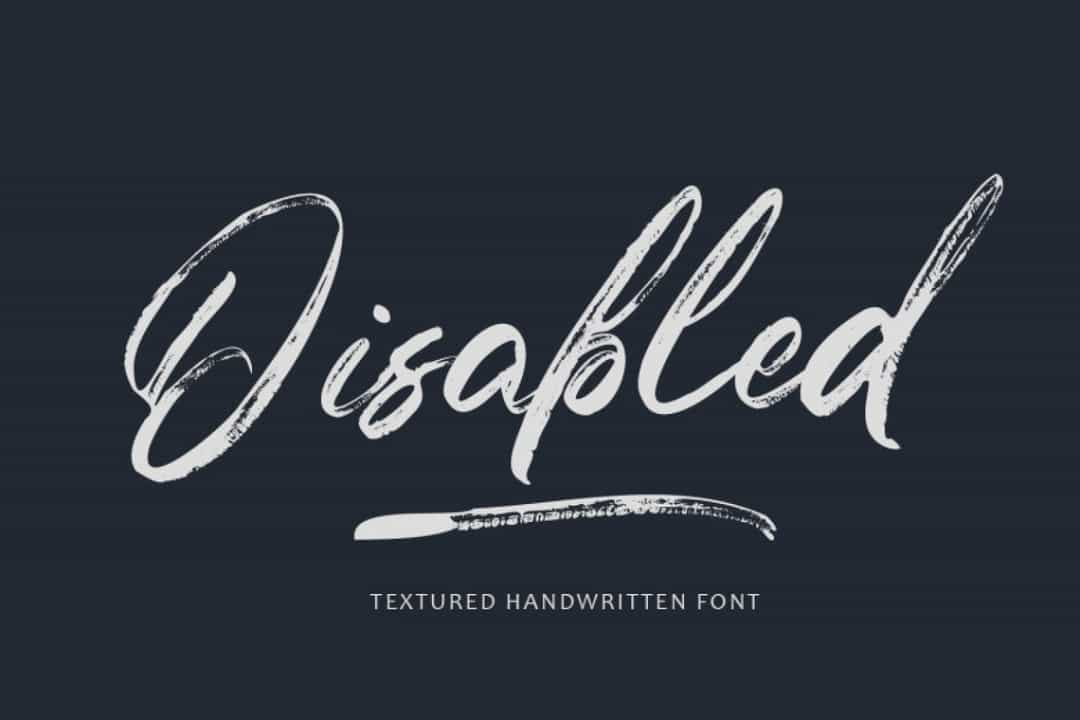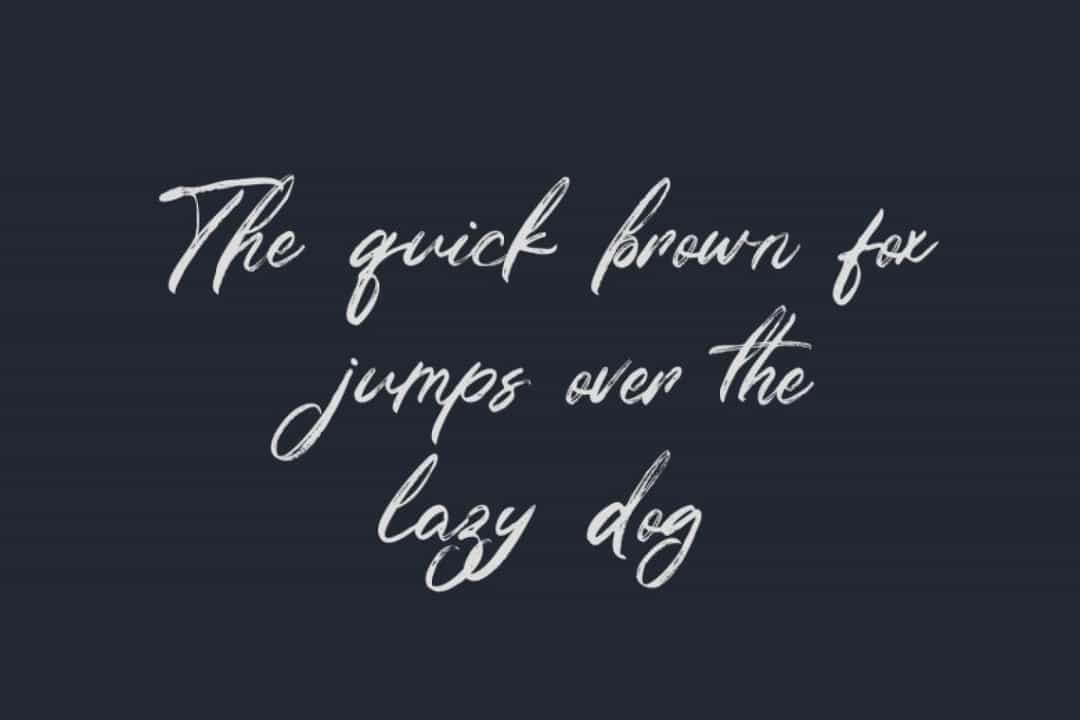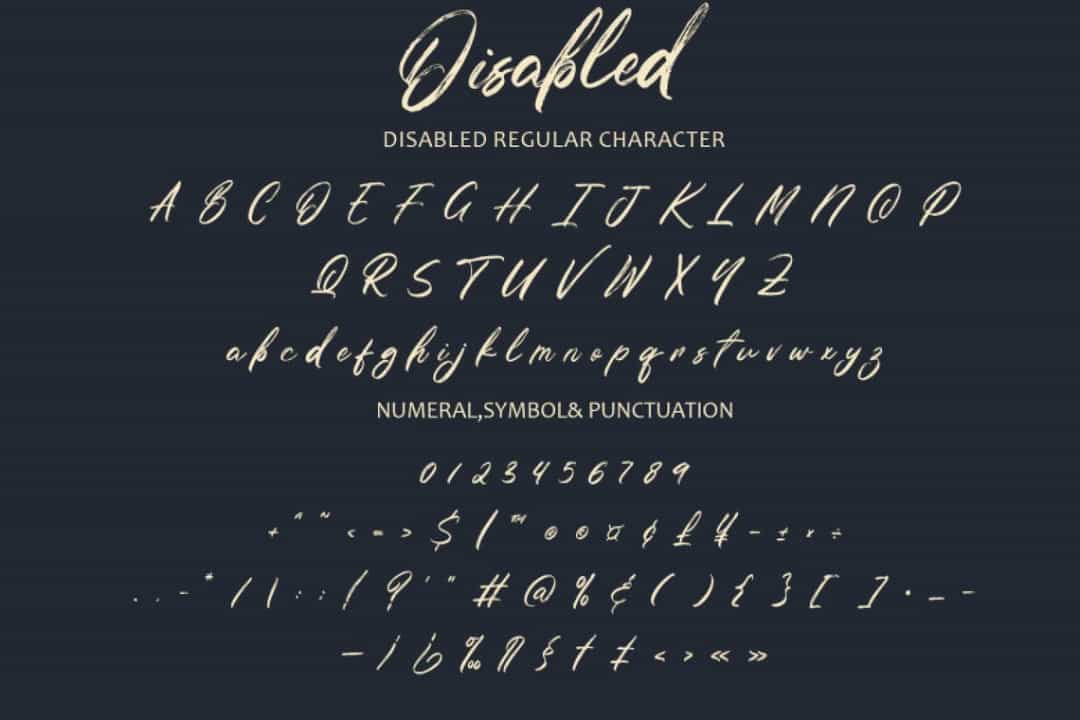
“Disabled”, an authentic handwritten brush script font with texture, blends handcrafted letters with its distinctive texture to add character and depth to any style. What sets “Disabled” apart is its tactile texture which adds character and depth – similar to that seen when writing with rough brush strokes for an authentic rustic look.